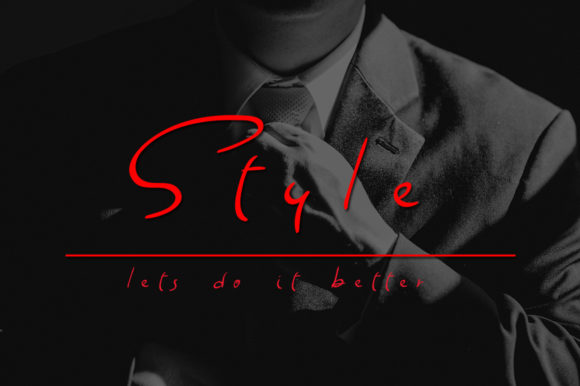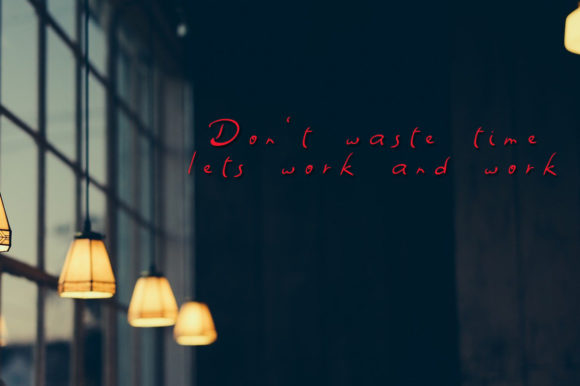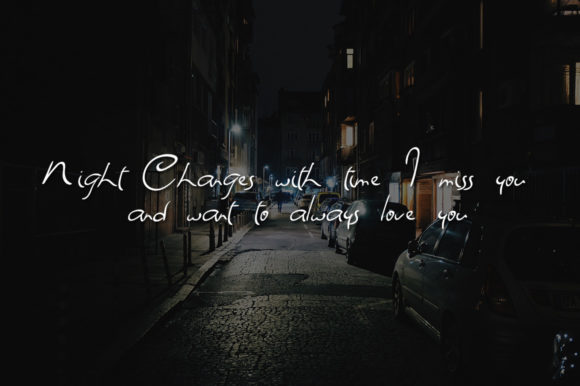
Quick Font
About Quick Font
Introducing Quick, a beautiful script font that exudes elegance and charm. With its graceful letterforms and intricate details, Quick is the perfect choice for adding a touch of sophistication to your designs.
Whether you’re working on invitations, branding, packaging, or any other project that requires a touch of elegance, Quick will elevate your designs and make them come alive. Its flowing and connected strokes create a sense of movement and harmony, capturing the eye and drawing attention to the beauty of your words.
The beauty of Quick lies in its versatility. It can be used for both formal and casual designs, adapting effortlessly to different styles and themes. Its elegant curves and carefully crafted details make every letter a work of art, adding a luxurious and refined touch to your projects.
With Quick, your projects will stand out from the crowd. Its beautiful script style adds a touch of sophistication and refinement, making a lasting impression on your audience. Whether you’re designing wedding invitations, elegant branding materials, or captivating packaging, Quick will help you create a visual experience that is both memorable and captivating.
So, embrace elegance and charm with Quick. Let its beautiful script font transform your designs and bring them to life. Whether it’s a special occasion or a professional project, Quick will add a touch of sophistication and make your designs truly unforgettable.
Add Quick to your font collection and unleash its beauty in your next project. Let its elegant and charming letterforms enhance your designs and create a lasting impact. With Quick, you’ll have the perfect font to elevate your creations and make them shine with elegance and charm.